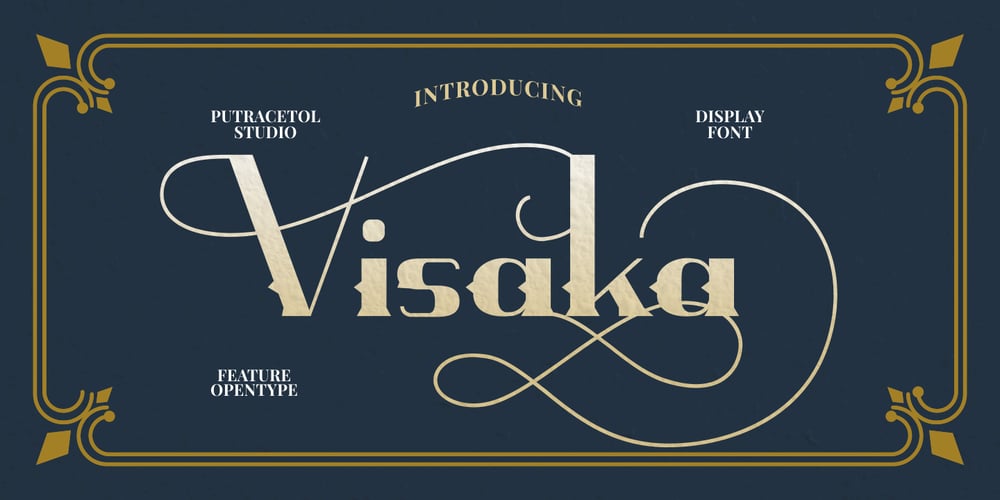
Visaka
Visaka font
Visaka Font Family was designed by Putra Novembria Candra Kusuma and published by Putracetol. Visaka contains 1 styles and family package options. Introducing Visaka, a Vintage Display Typeface. Classic, Elegant , Unique and Luxury merged into one. Visaka is great for any kind of display purpose from logos, T-shirts, apparel, quotes, handwritten quotes, product packaging, tittle header, posters, merchandising, social media, labels, branding & greeting cards.